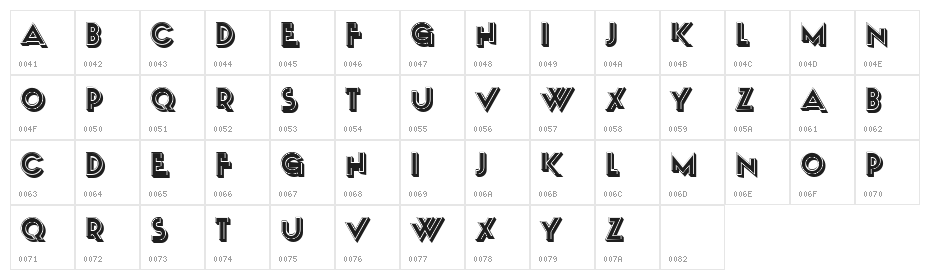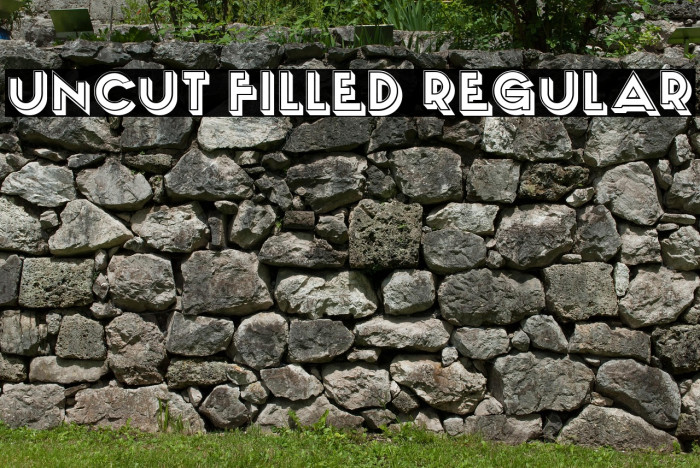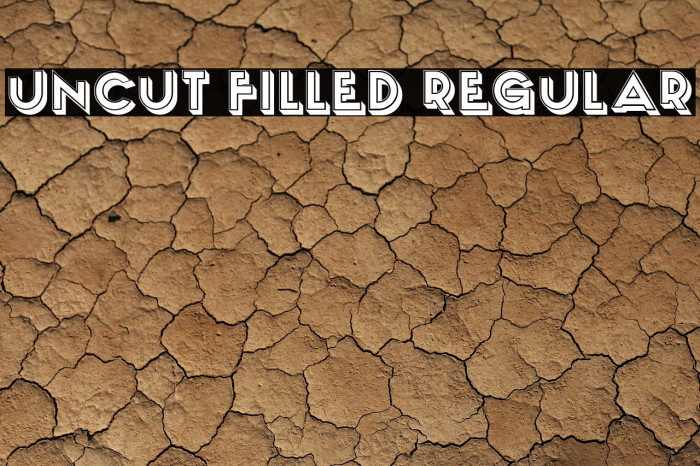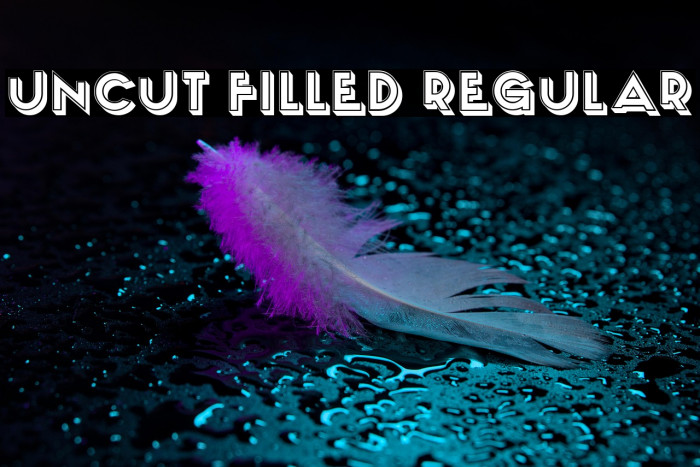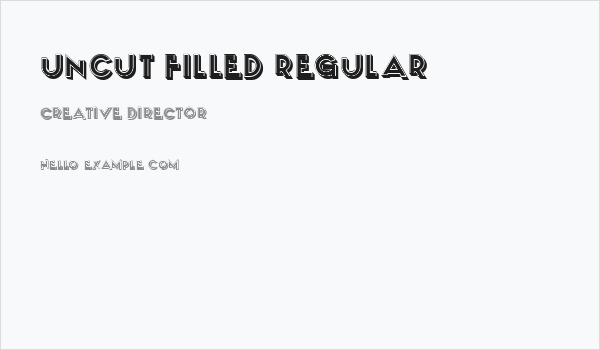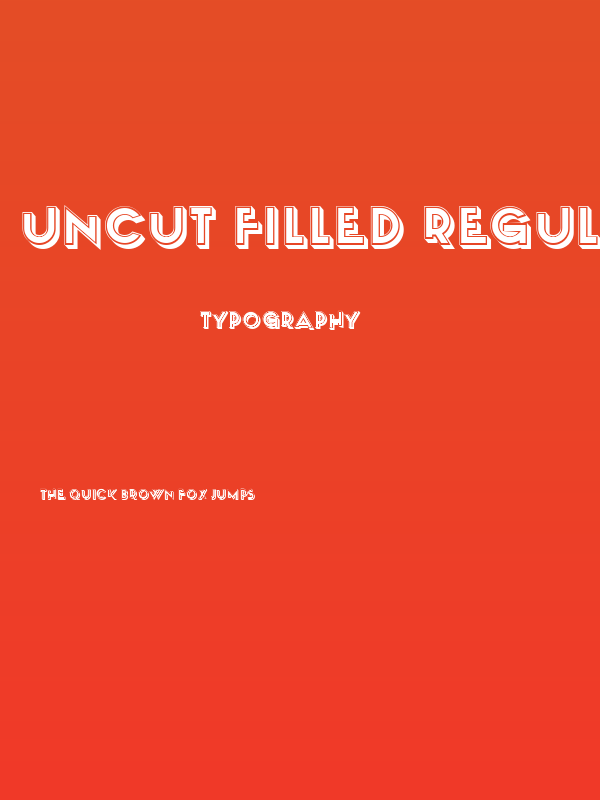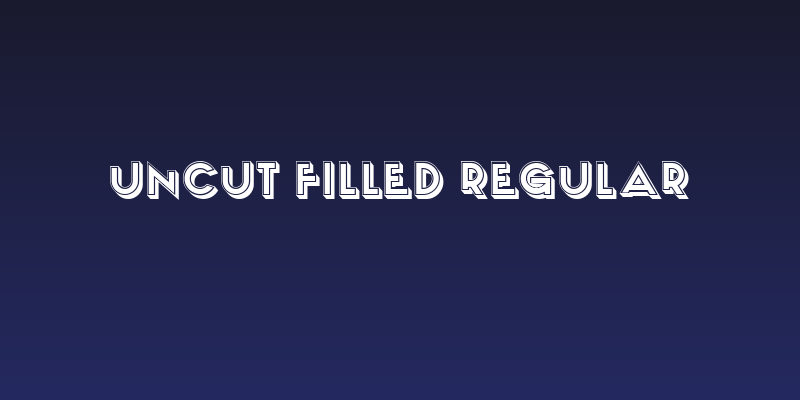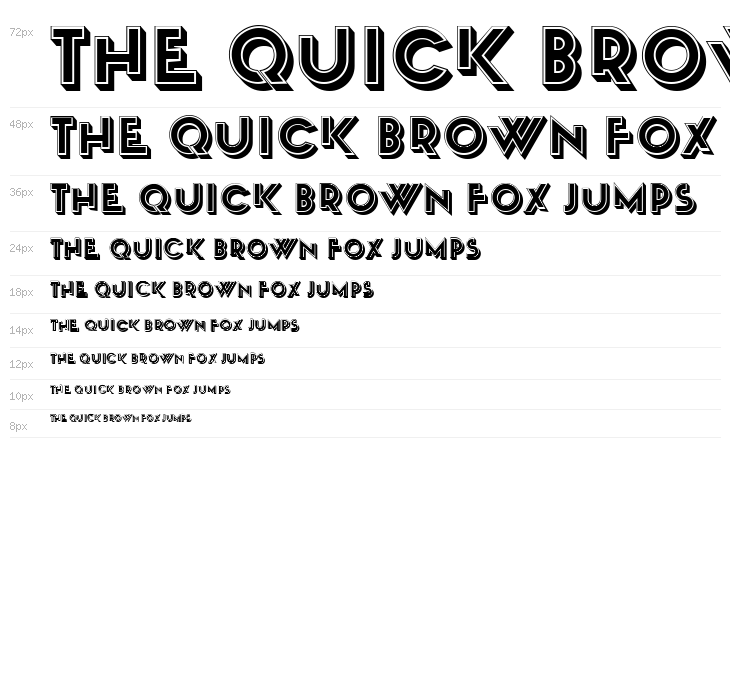
Uncut Filled Regular Font
✎ Art Deco
Uncut Filled Regular Description
This font features a bold, geometric design with a three-dimensional effect that gives it a striking and modern appearance. The characters are constructed with thick lines and sharp angles, creating a sense of depth and movement. The uppercase letters are particularly prominent, with a strong presence that commands attention. The font's style is reminiscent of art deco influences, combining both vintage and contemporary elements. Its unique structure makes it ideal for creating eye-catching headlines and titles. The spacing between characters is tight, enhancing the compact and cohesive look of the text.